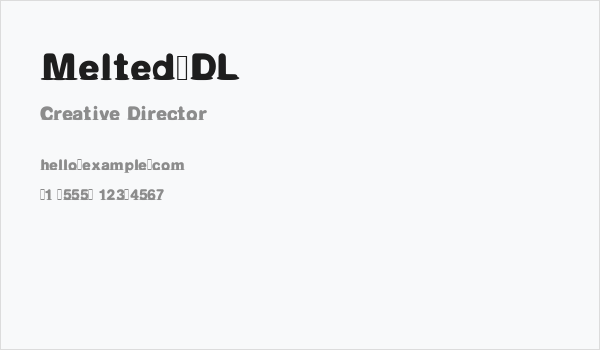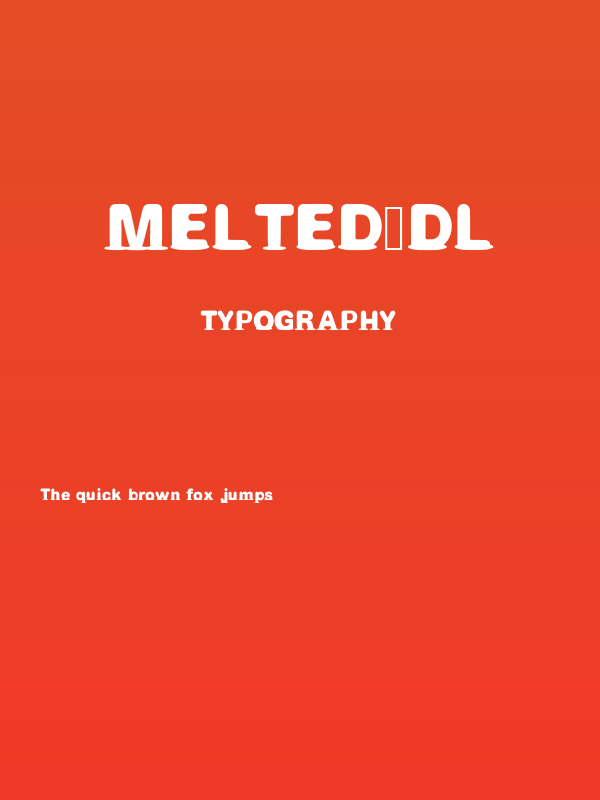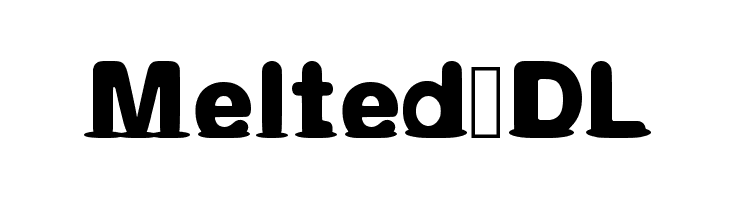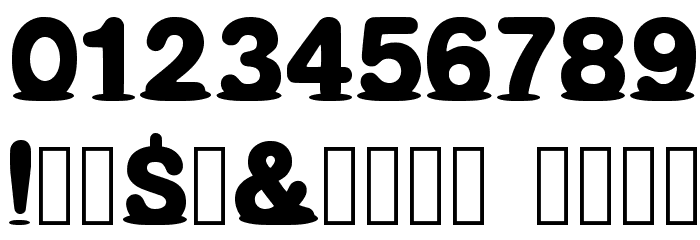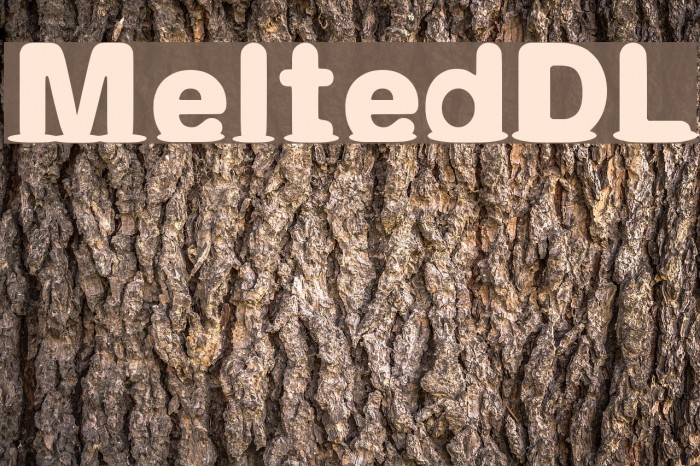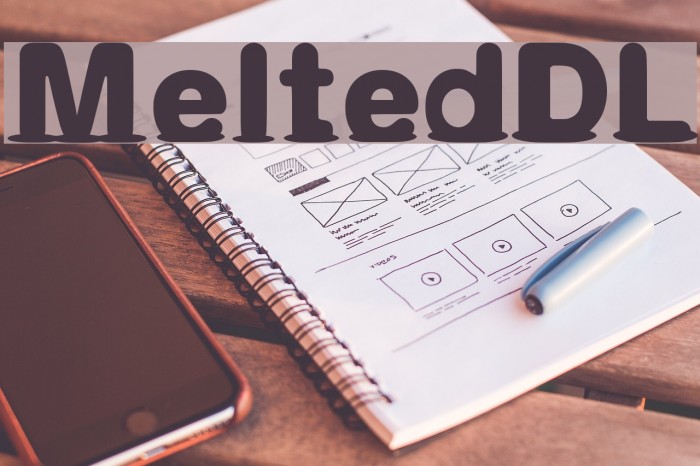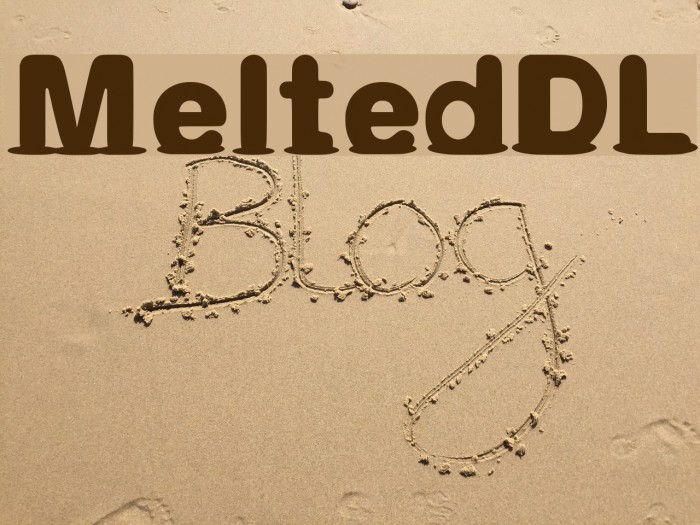
Melted_DL Font
Melted_DL Description
This font features a bold and playful design with rounded edges and a slightly melted appearance, giving it a unique and whimsical character. The letters are thick and substantial, making them highly visible and impactful. The uppercase and lowercase letters maintain a consistent style, with a uniform thickness throughout. The numbers and special characters follow the same playful aesthetic, ensuring a cohesive look across all text elements. This font's distinctive style makes it stand out, perfect for creative and fun projects.
| Overall Style | Playful, Whimsical |
| Proposed Projects | Ideal for children's books, playful branding, posters, and creative advertisements. |